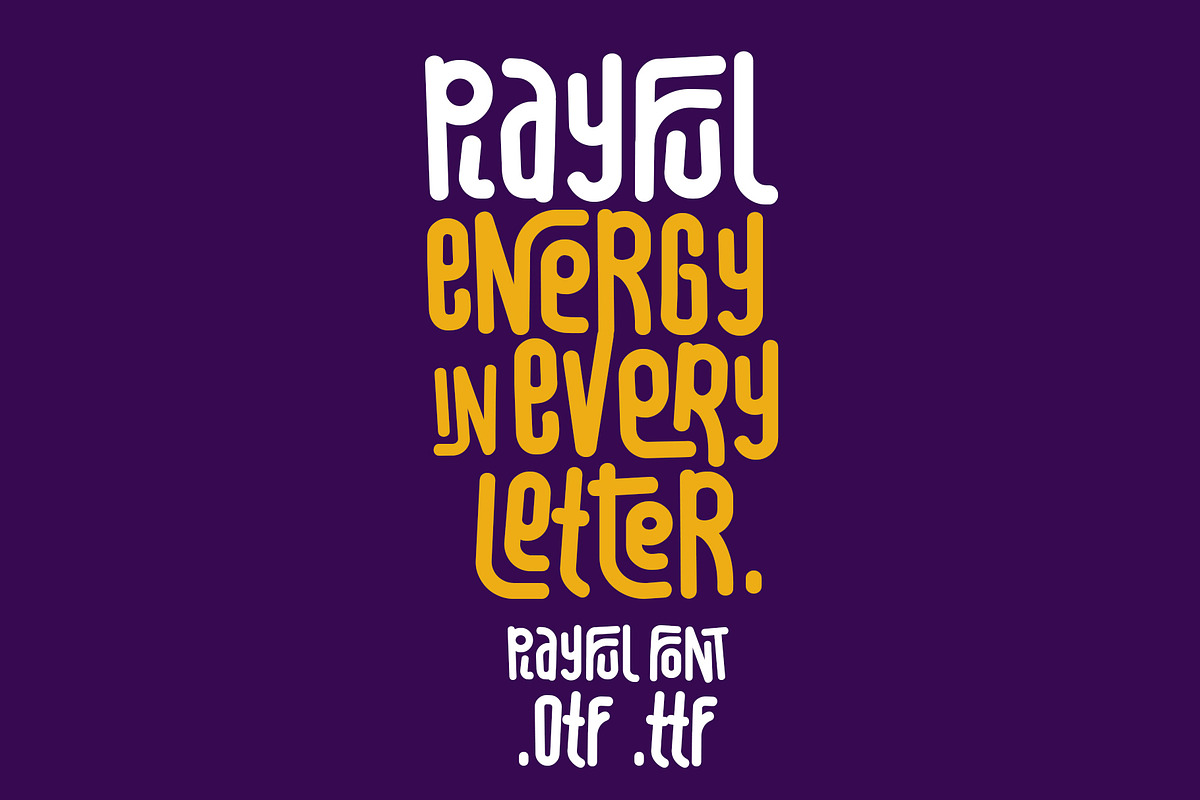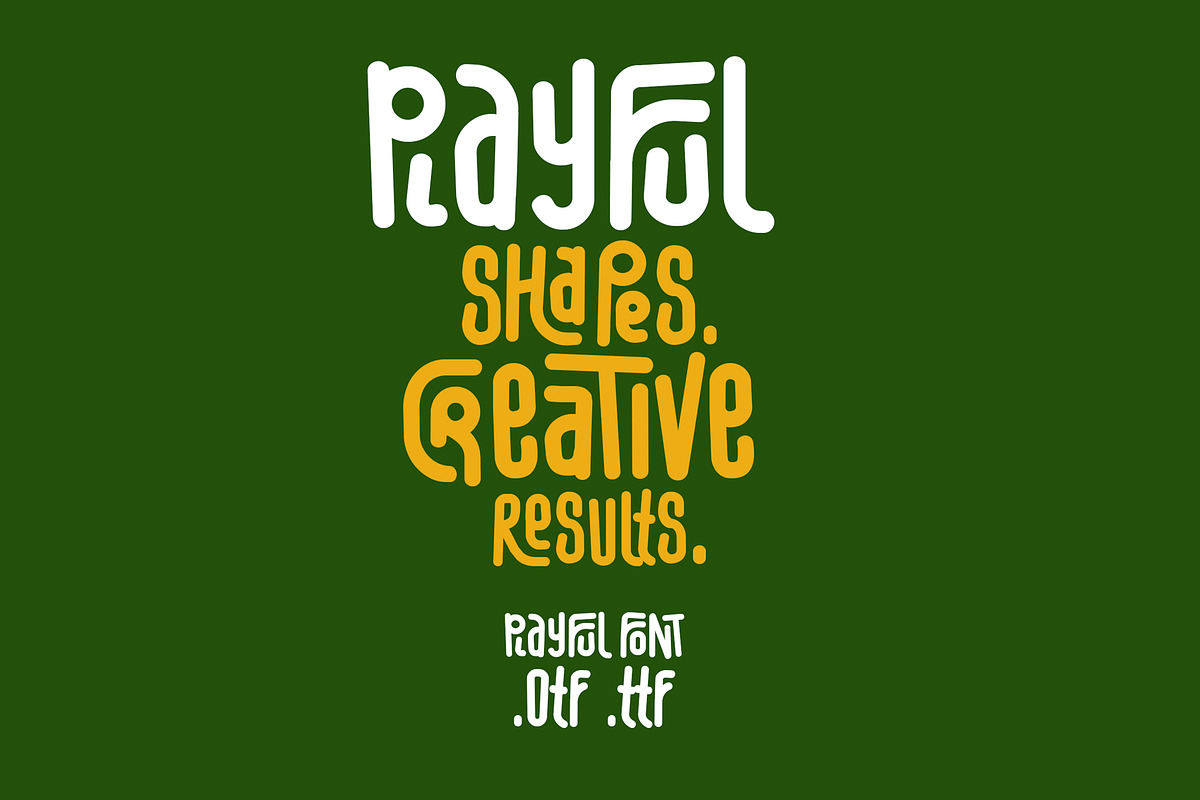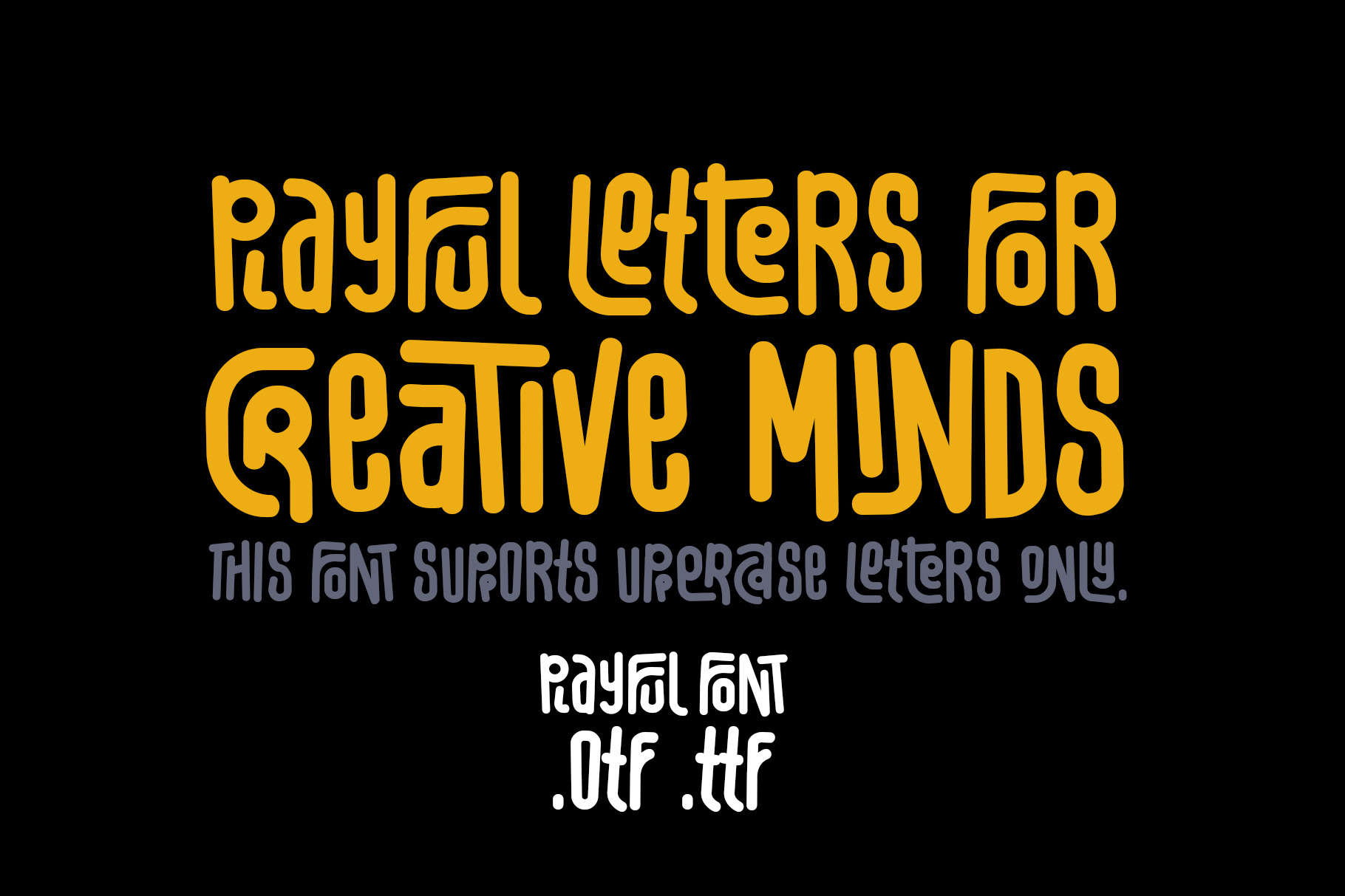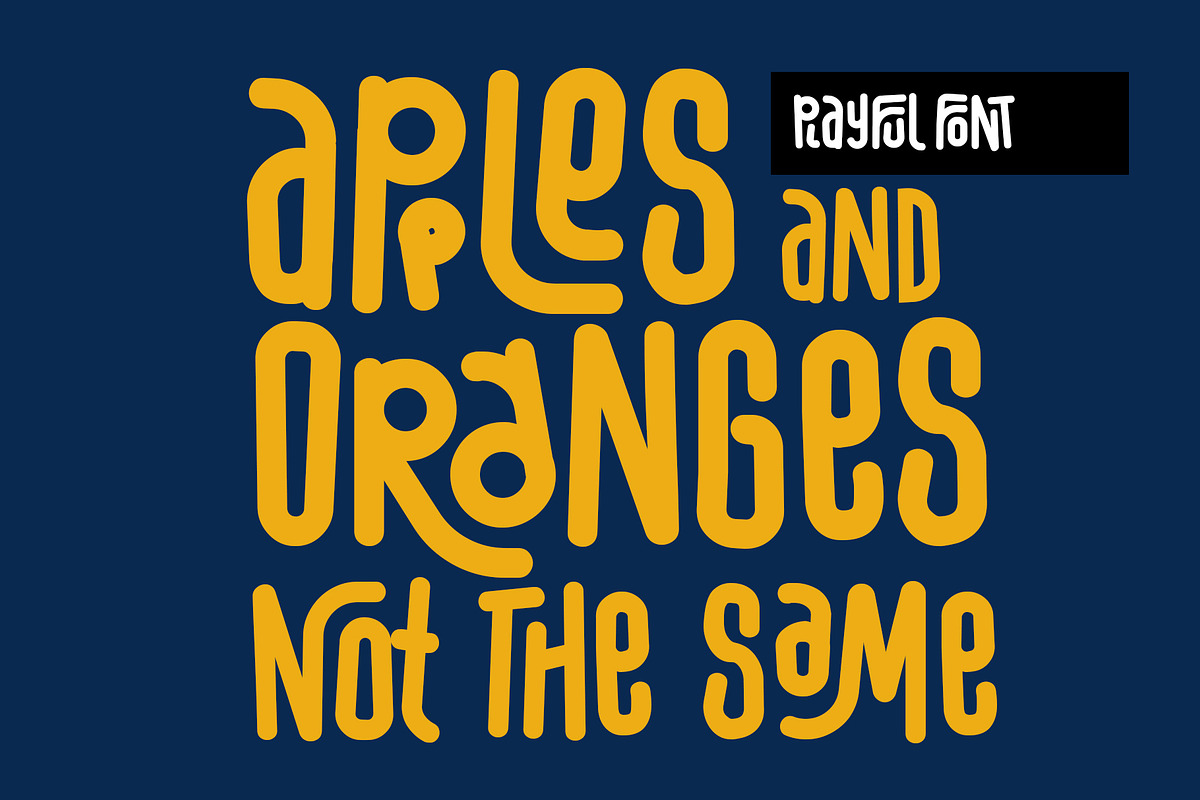
Playful Font
PLAYFUL FONT
Playful Font is a fun, cheerful, and modern display typeface designed to bring personality and creativity to every project. With its unique letterforms and lively character, this font is perfect for designs that need a fresh, friendly, and eye-catching look.
THIS FONT SUPPORTS UPPERCASE LETTERS ONLY.
Whether you're creating branding, logos, packaging, social media graphics, posters, invitations, children's products, T-shirts, stickers, or digital content, Playful Font adds a joyful touch while remaining clean and easy to read.
Logos & Branding
Children's Books
Posters & Headlines
T-Shirt Designs
Greeting Cards
Invitations
Stickers & Labels
Website Headers
DIY & Craft Projects
Uppercase Letters Only